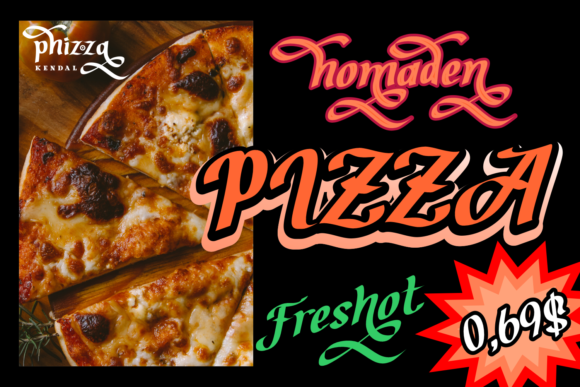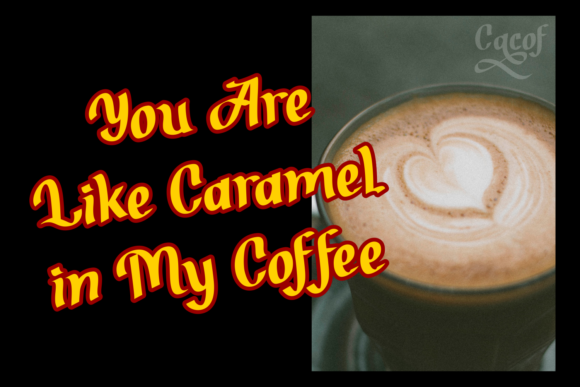
Brother Zoned Font
About Brother Zoned Font
Brother Zoned is a unique handwritten typeface with a unique style. Get inspired by its one-of-a-kind appearance!